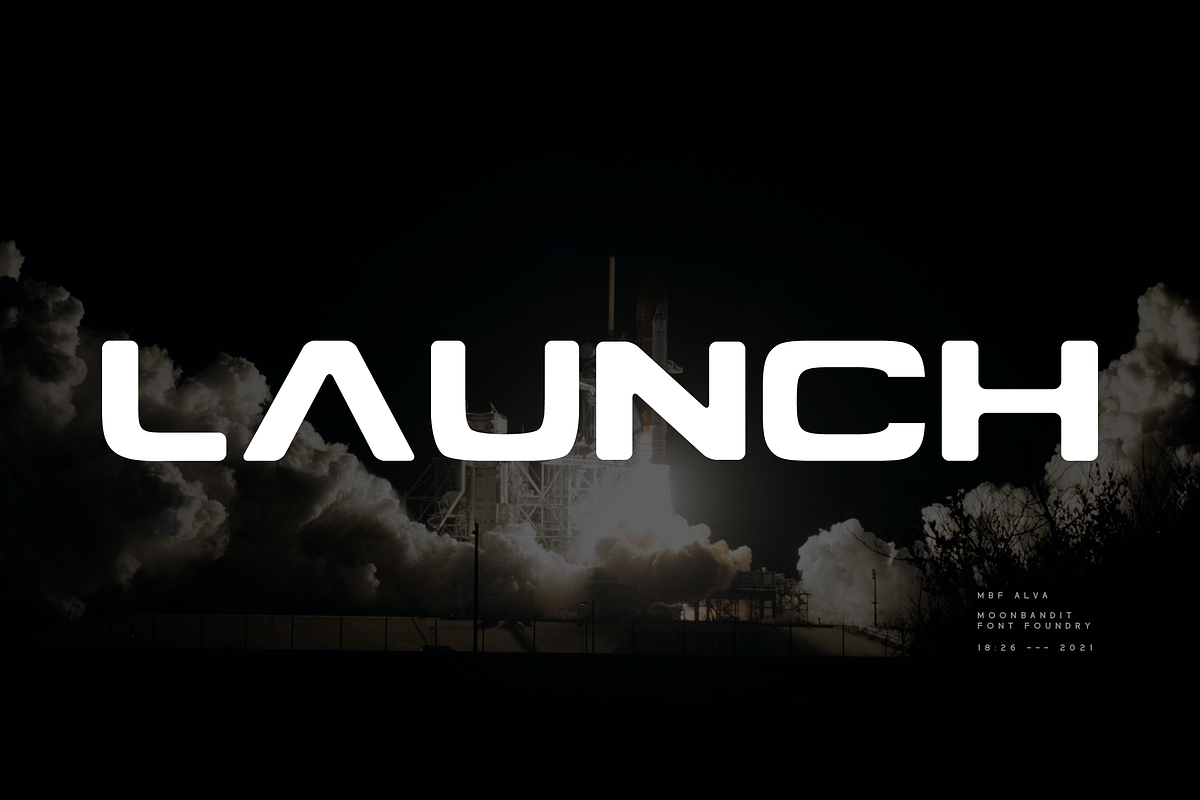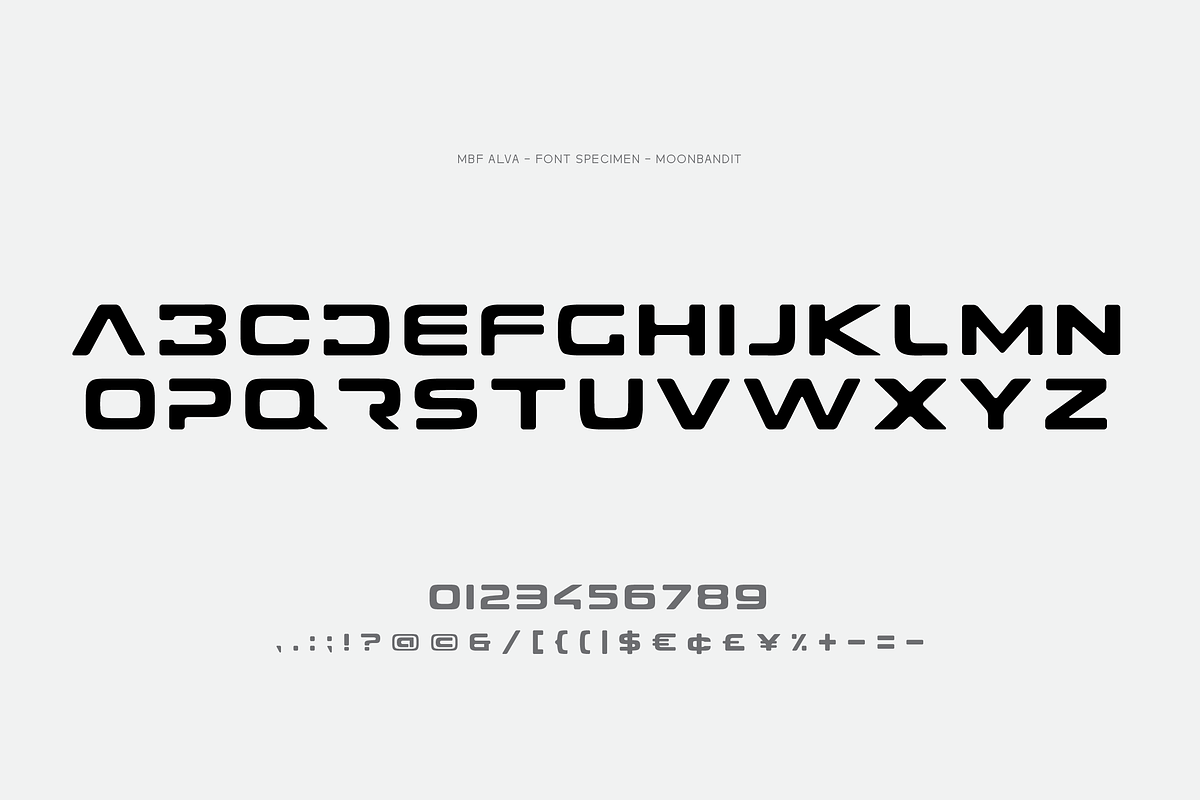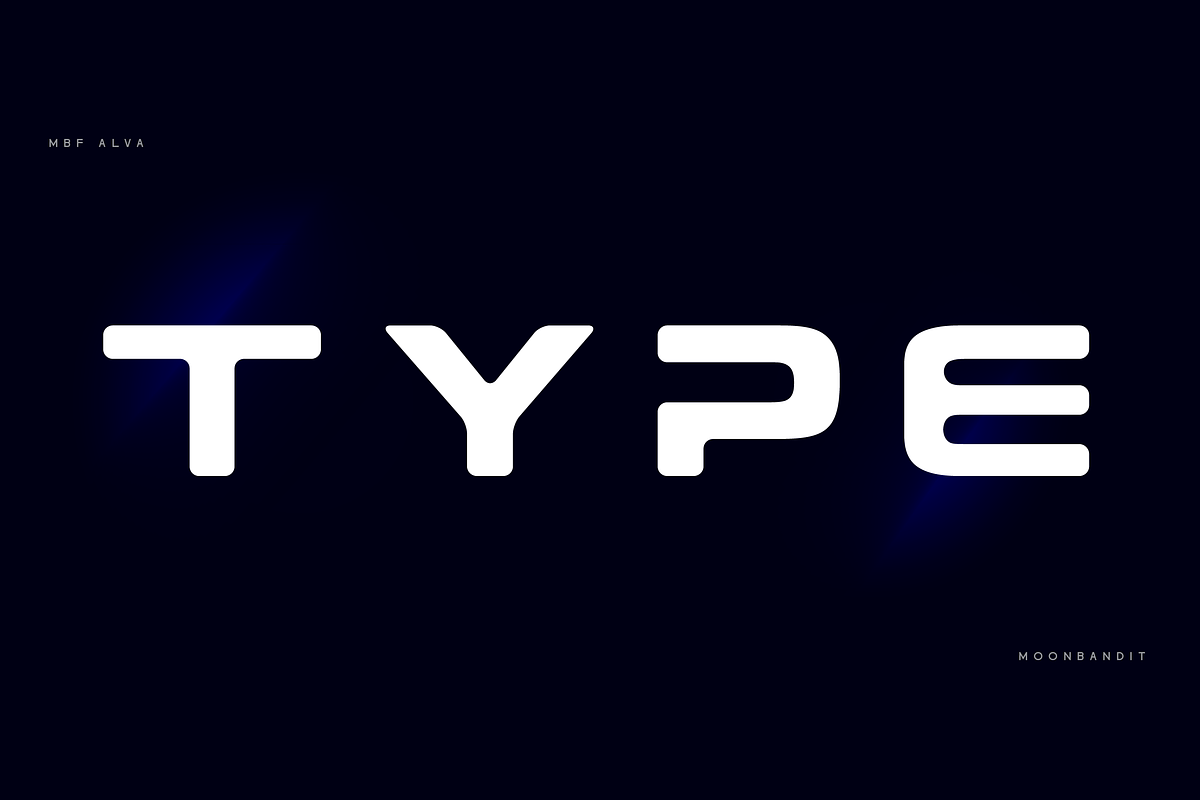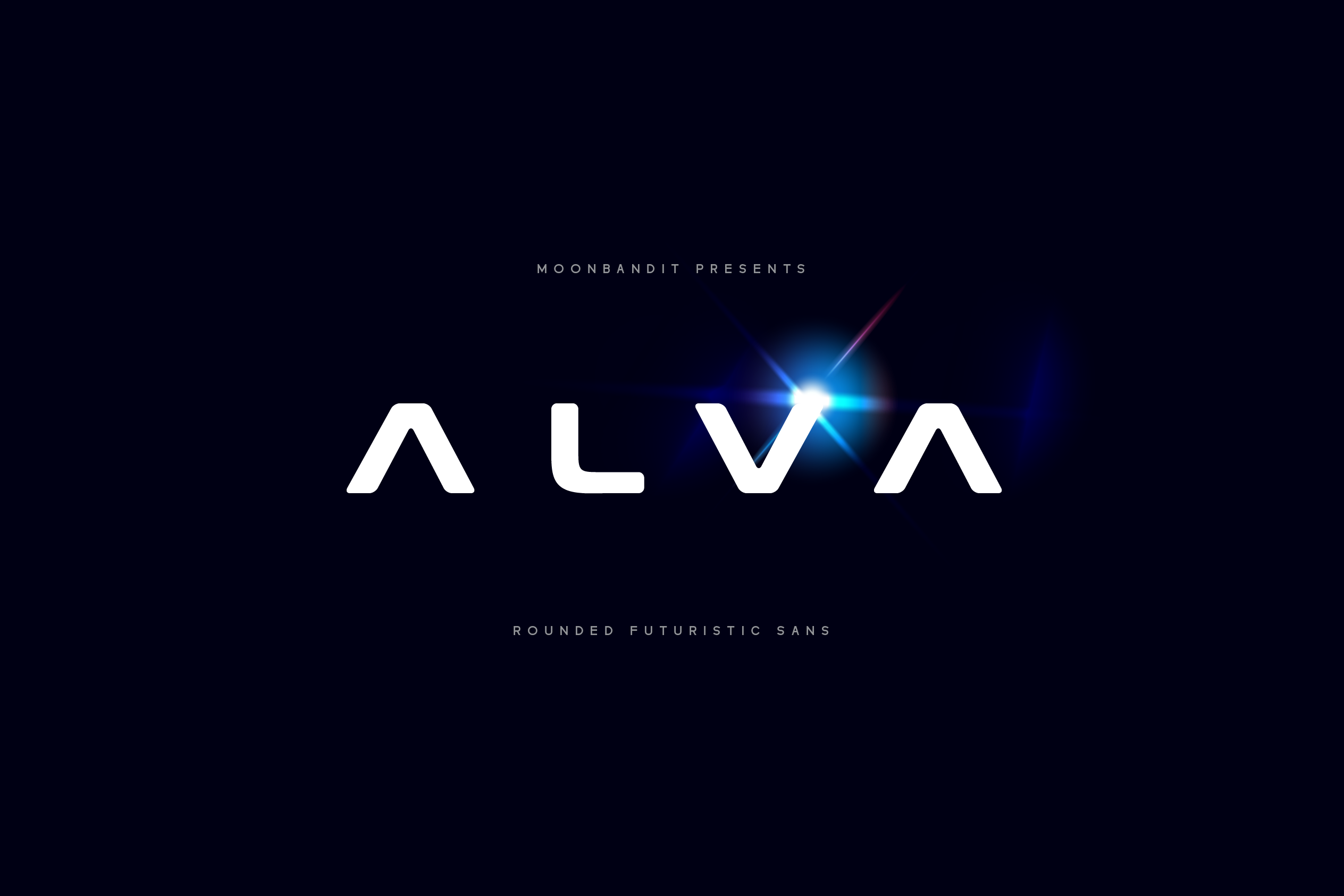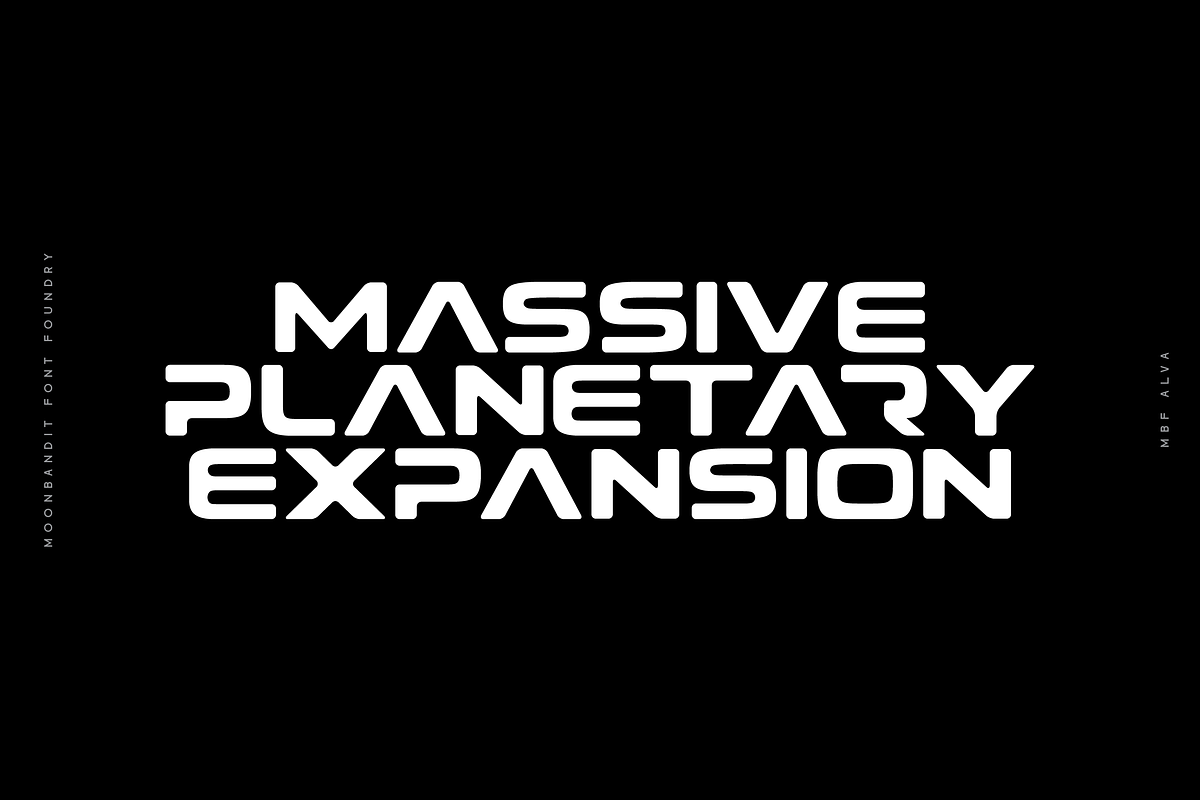
MBF Alva - Futuristic rounded font
Alva, a big and bold futuristic font. This typeface is inspired by the need of an easy to read, attention grabber futuristic theme yet not too edgy. The rounded corner balance the extreme width and transition of each glyph. Perfect to be used as wordmark, headline, title, poster, T-shirt design, and many more.